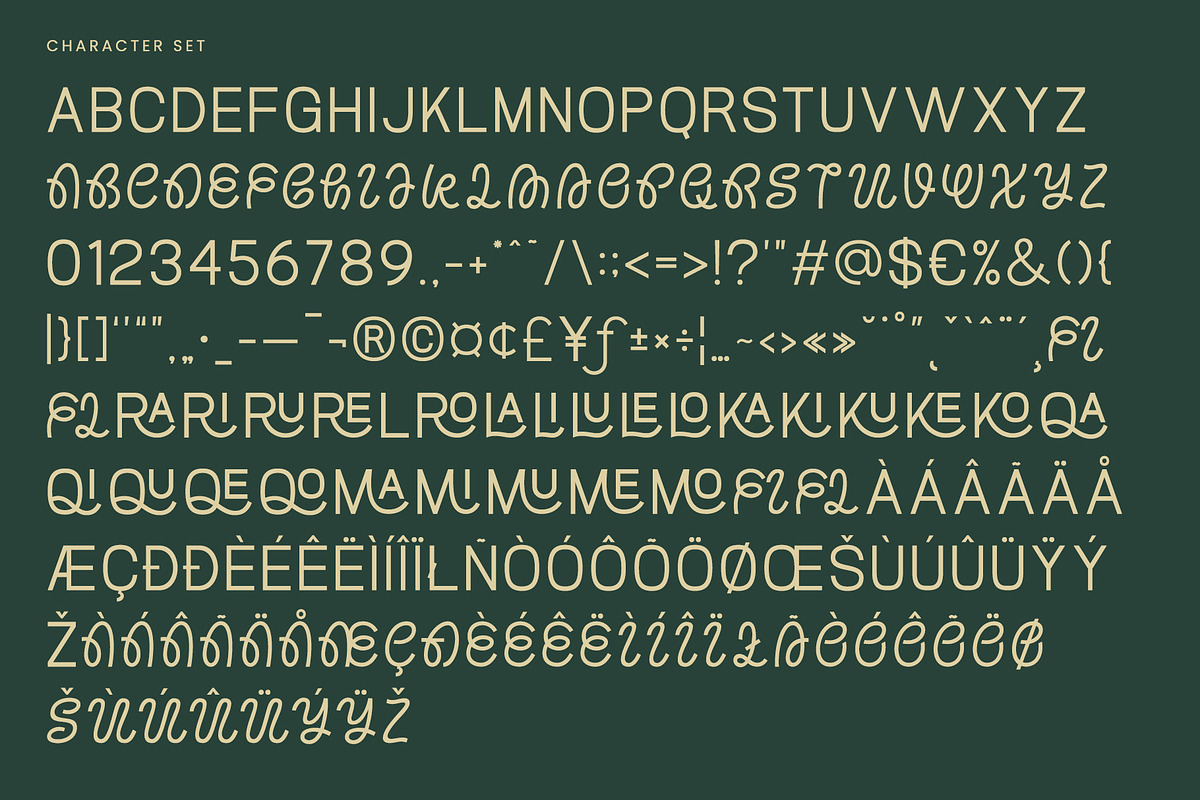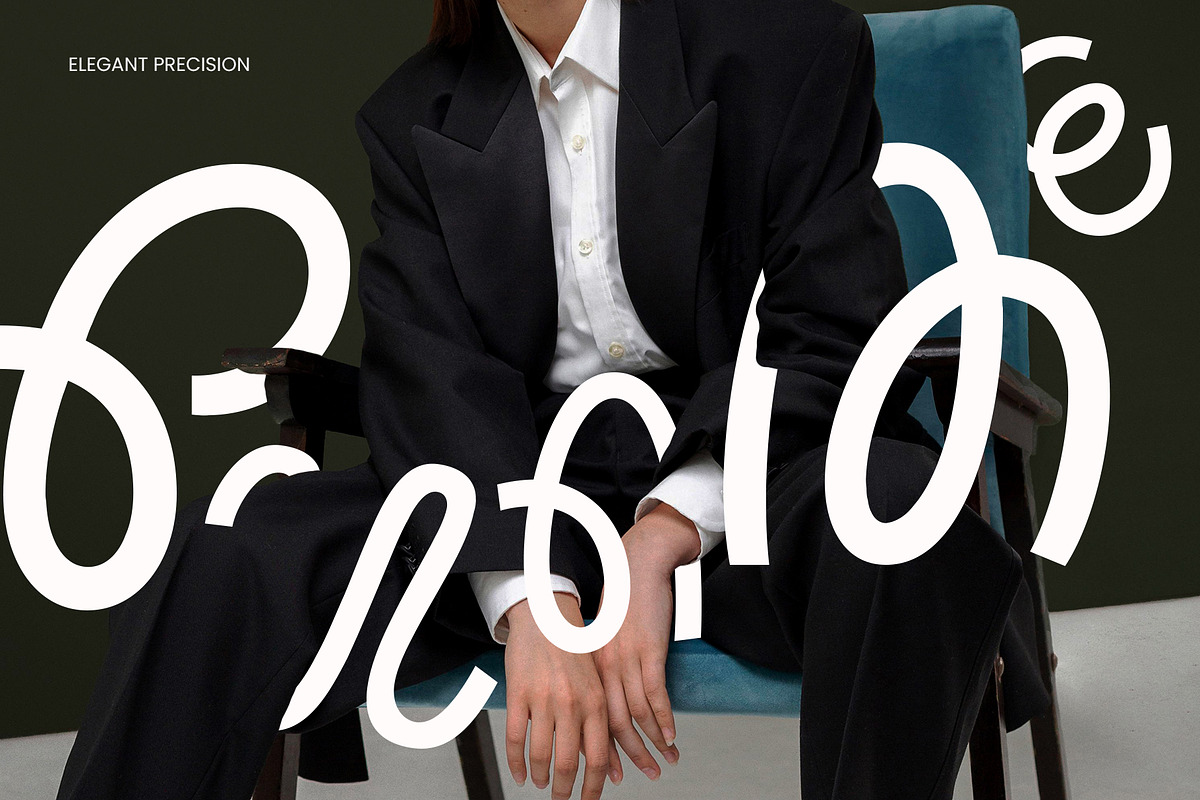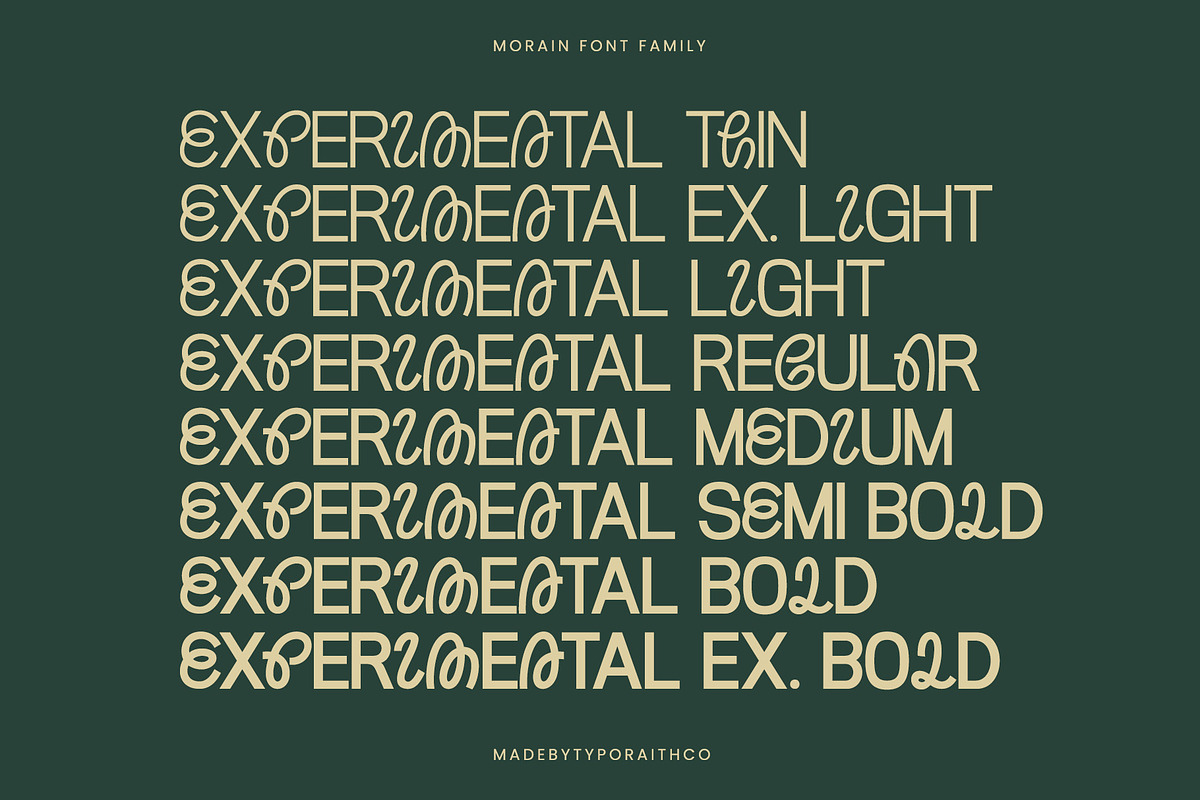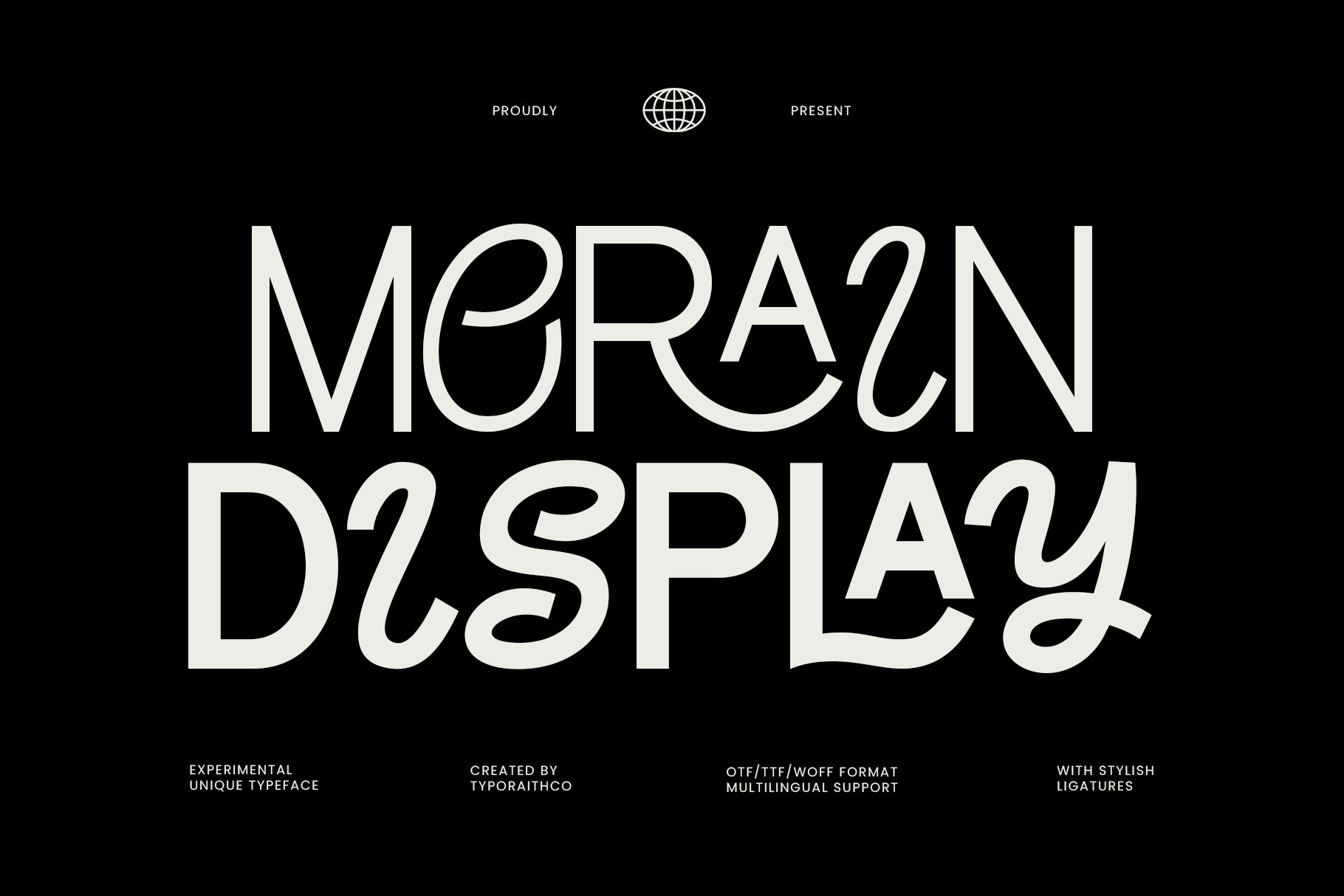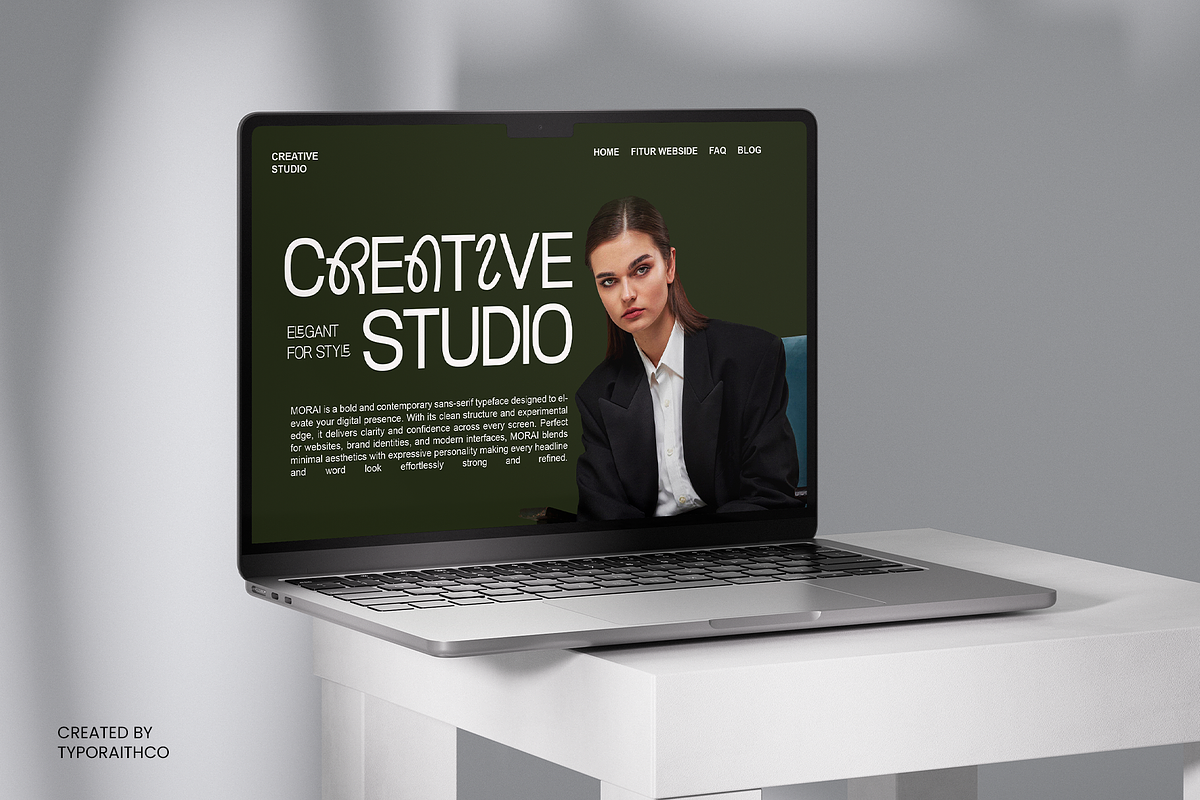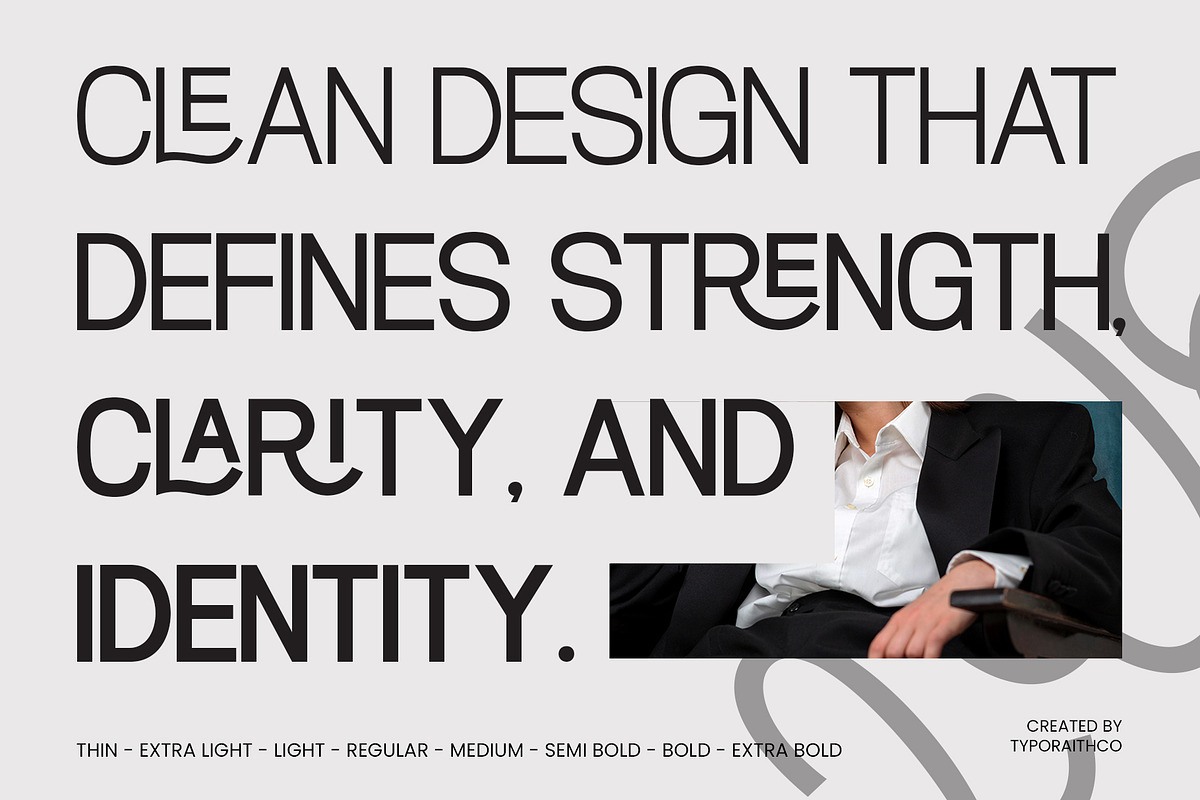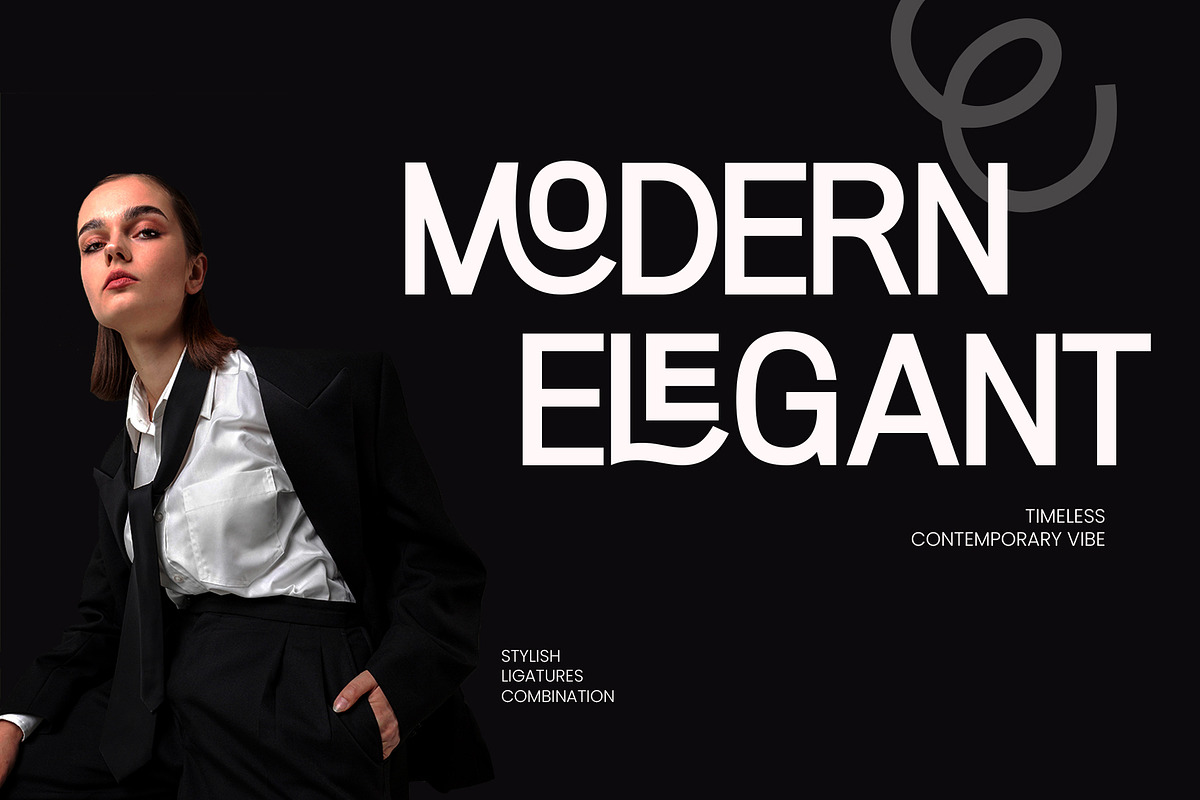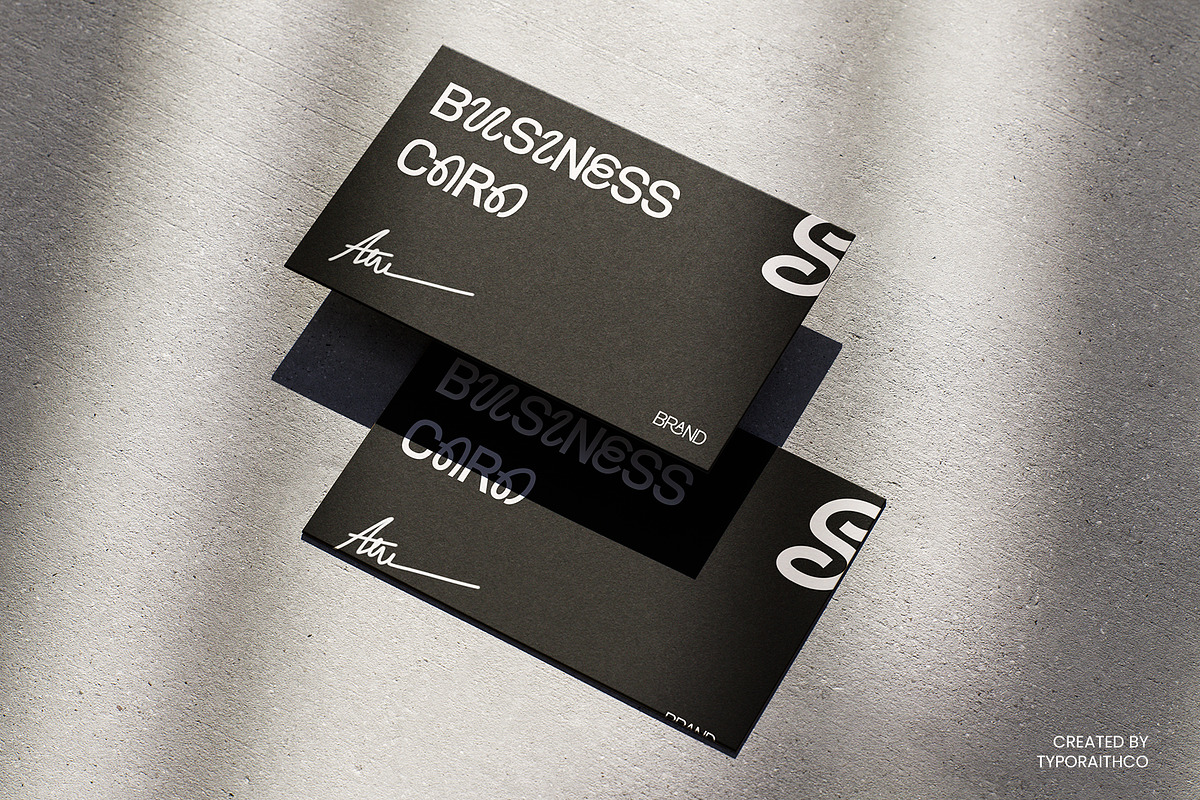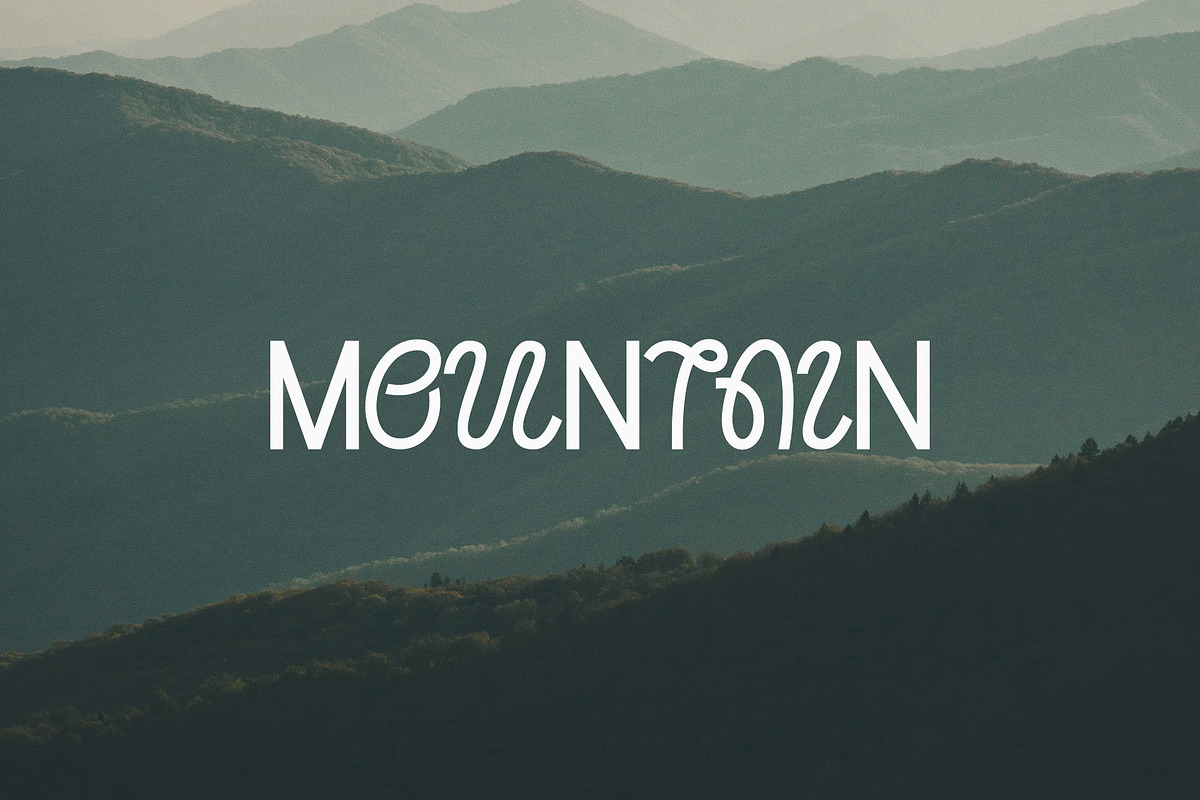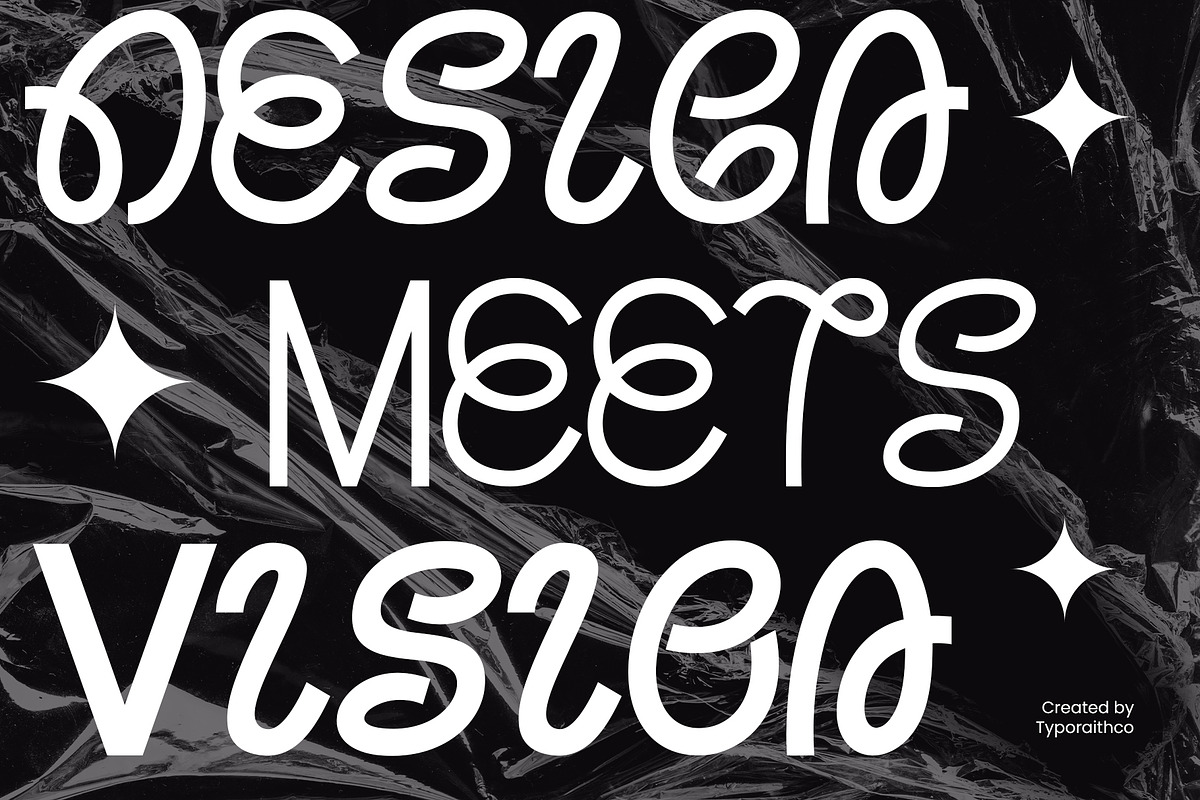
Morain Font Family
Morain Display is an experimental font family that blends modern geometry with artistic curves, creating a bold and distinctive visual statement. Designed to stand out, this typeface is perfect for branding, editorial design, posters, packaging, and creative headlines.
Each letter in Morain Display carries a unique rhythm — balancing clean lines with playful strokes. The font family offers versatile styles that make it suitable for both minimal and expressive design concepts.
Morain Display 8 Variable Font Styles
Uppercase & lowercase letters
Stylish ligatures
Perfect for: Logos, posters, magazine titles, album covers, branding identity, and typographic art.
Unique and experimental letterforms
Strong visual personality